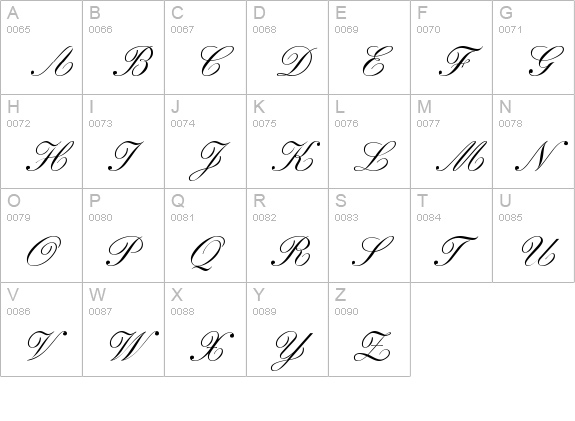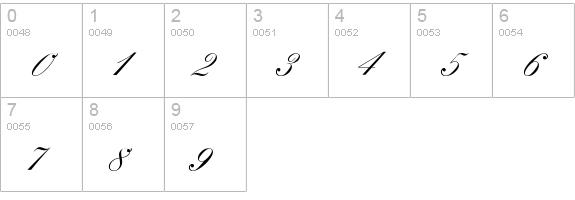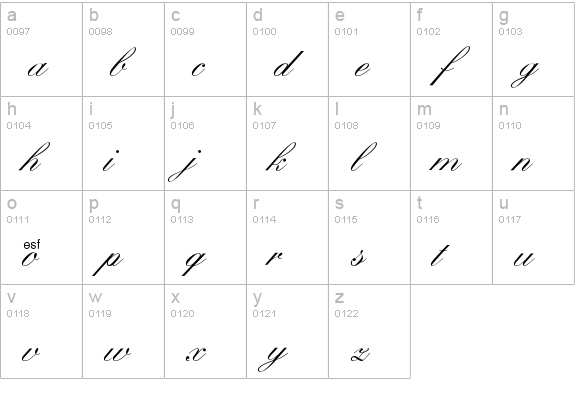
Hotpress Font Details
Introducing Hotpress font, a versatile and modern typeface that exudes sophistication and elegance. With its bold strokes and clean lines, Hotpress is perfect for a wide range of design projects, from logos to branding to editorial layouts. The sleek and stylish look of Hotpress makes it a standout choice for any designer looking to make a statement. What's even better is that Hotpress font is available for free download at FontsMarket.com. Yes, you read that right - this high-quality font can be yours at no cost, allowing you to elevate your creative projects without breaking the bank. Don't miss out on the opportunity to add Hotpress to your font collection and take your designs to the next level. Download Hotpress font today and let your creativity soar.